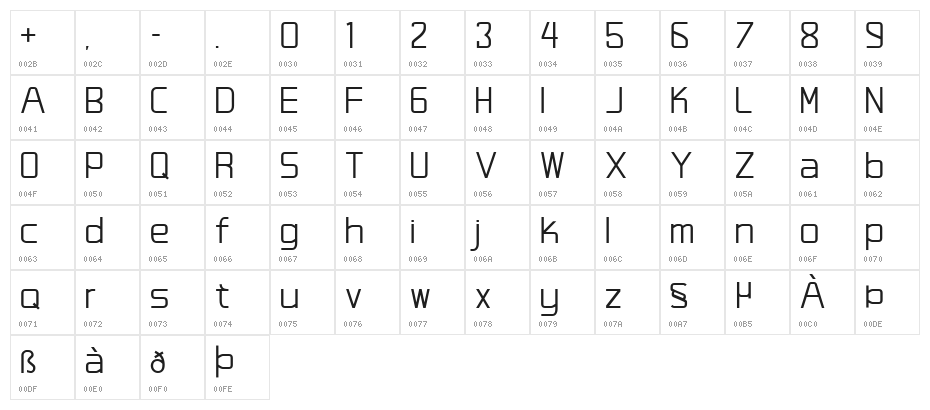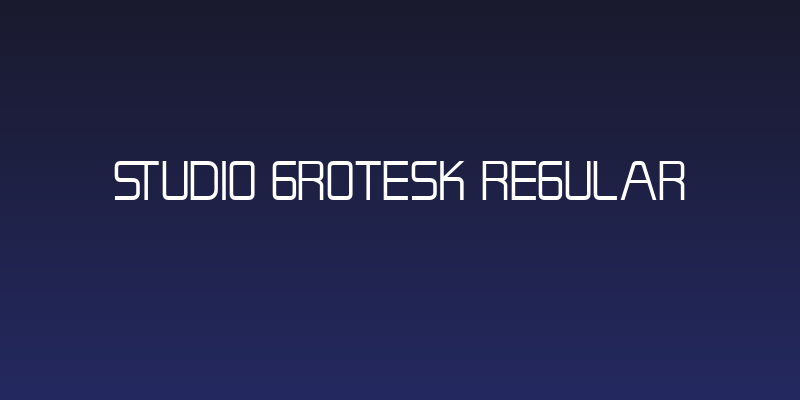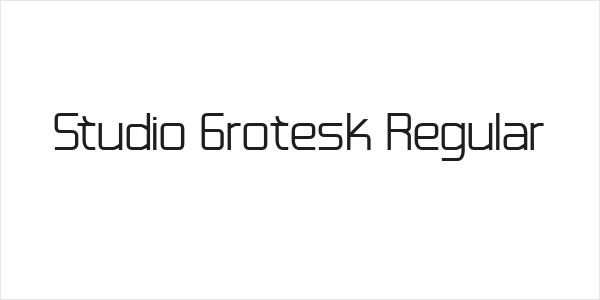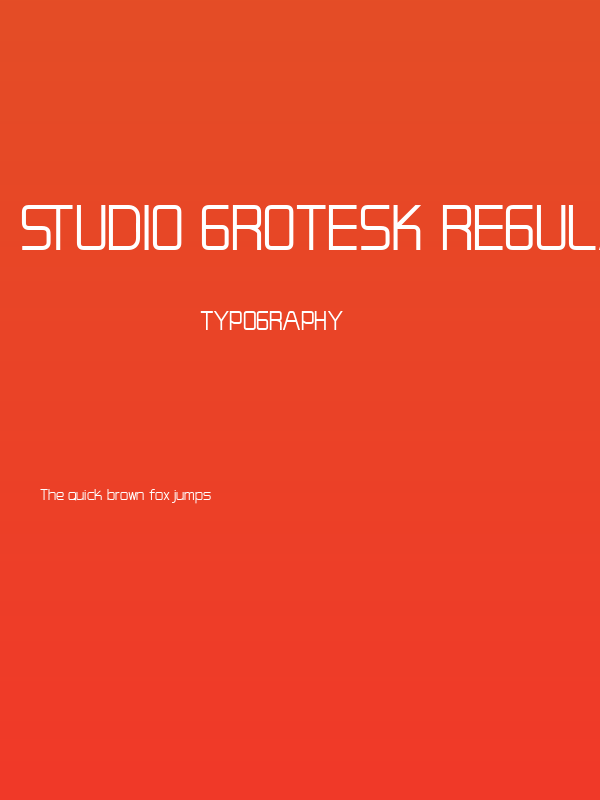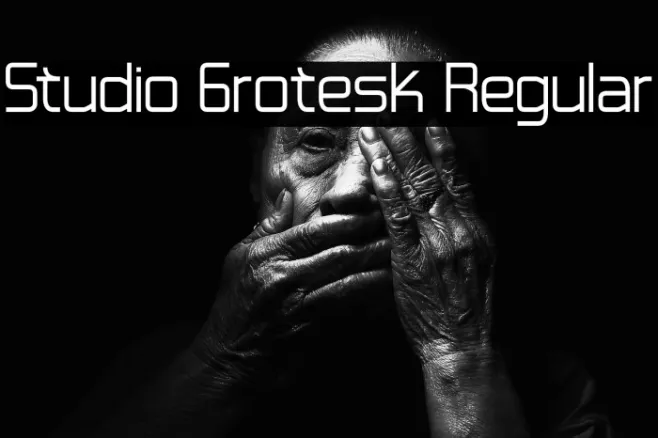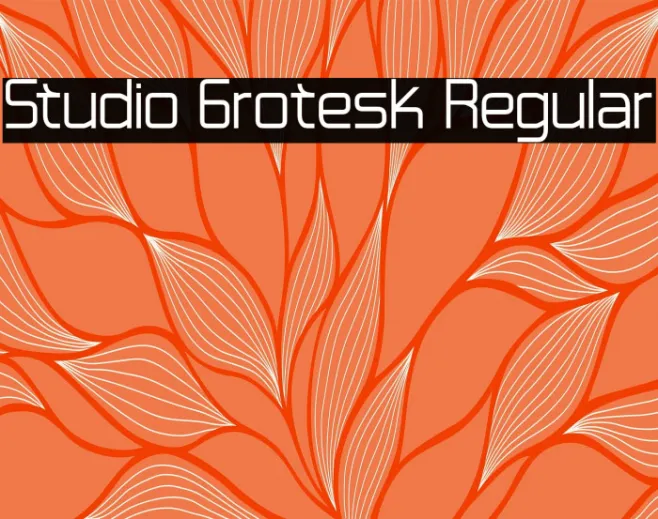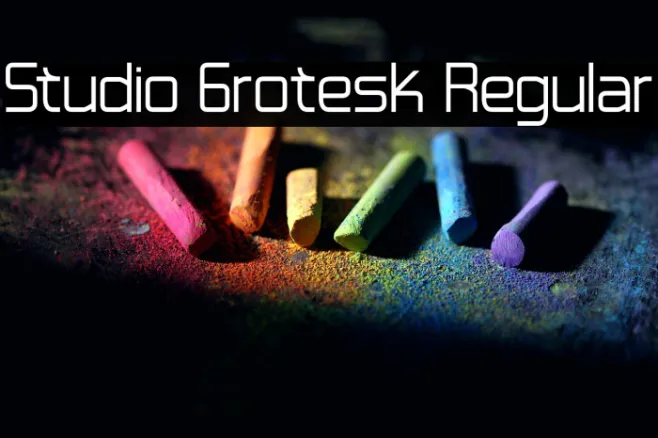
Studio Grotesk Regular Font
Studio Grotesk Regular Description
This font features a clean and modern sans-serif design with a geometric structure. The characters are uniform in width, providing a balanced and harmonious appearance. The uppercase letters are bold and assertive, while the lowercase letters maintain a consistent height, enhancing readability. The numerals are clear and distinct, making them suitable for various applications. The overall design is minimalistic, with a focus on functionality and simplicity. The font's style is versatile, making it suitable for both digital and print media.